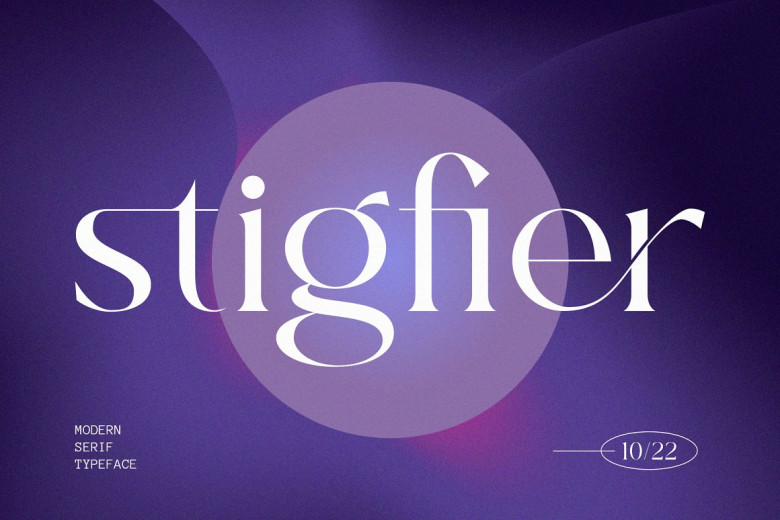
Stigfier Font
Stigfier was the first modern serif typeface I did. Stigfier font is a serif font. It is a modern feel of grand significance, perfectly appropriate for displaying very small titles, subtitles and text descriptions. This stigfier is great for writing presentations, about the web or to hang navigation on the left upper side of web pages. This font even looks cool used to write an advertisement article, for example articles on social media and the like.
Stigfier Modern Serif Font